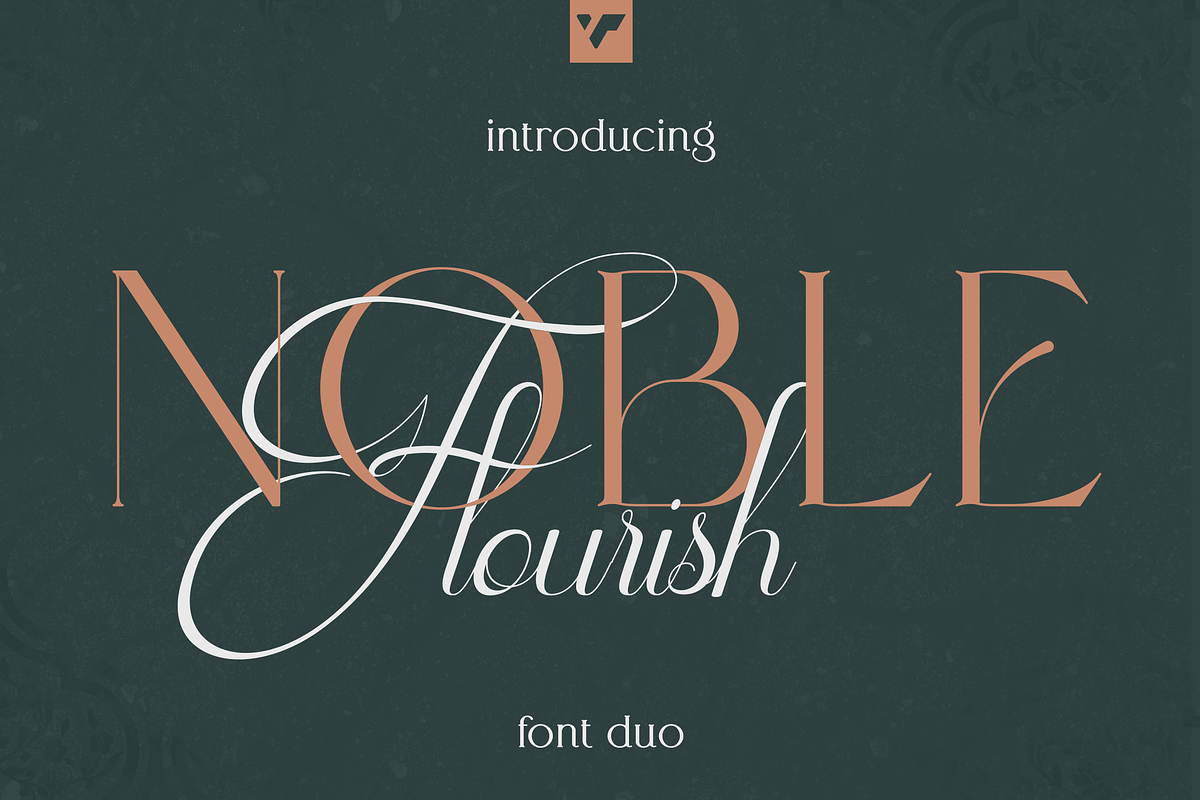
Noble Flourish – Elegant Font Duo Free Download is a beautifully balanced combination of a luxurious serif and a flowing script font, crafted to bring sophistication and versatility to your designs. Ideal for wedding invitations, branding, editorial layouts, packaging, and high-end product design, this duo allows you to pair structure with elegance effortlessly.
The serif font in Noble Flourish Free Download offers timeless grace with refined letterforms, while the accompanying script adds a handcrafted, romantic flair. Together, they create stunning typographic harmony that elevates any project with style and charm.